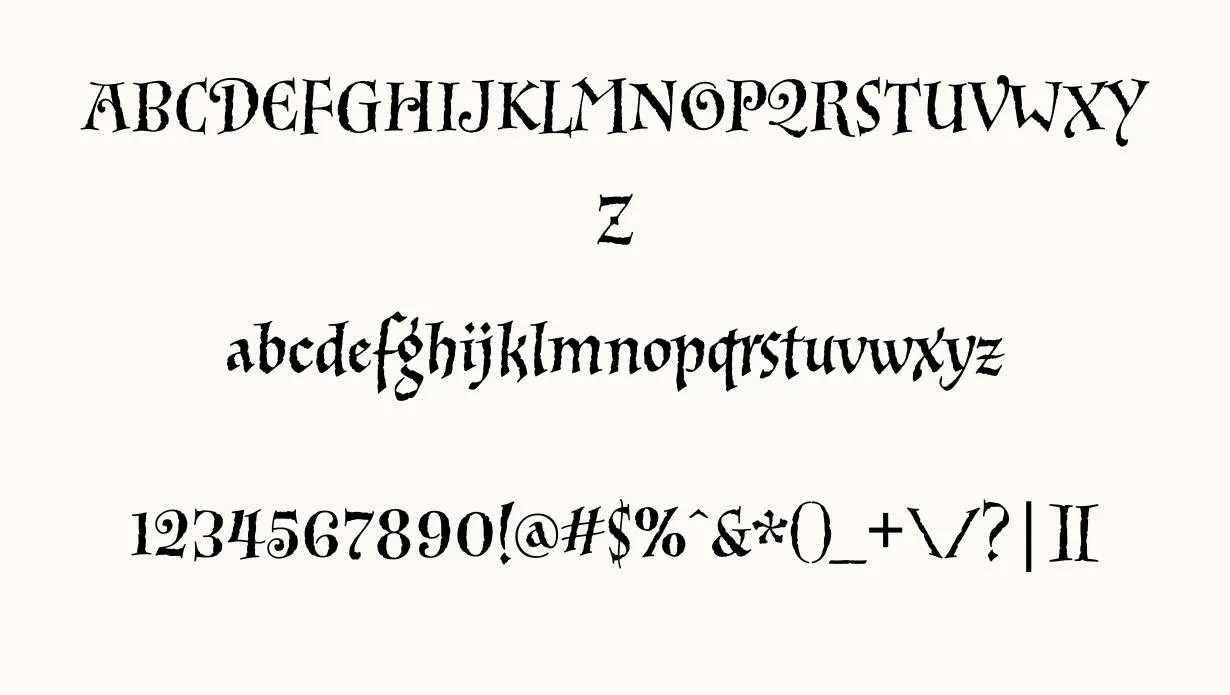
Inkpot Font is inspired by the world of calligraphy and handwritten script, making it a suitable choice for projects that require a personal and artisanal touch.
It adds a sense of handcrafted authenticity and individuality to your designs.